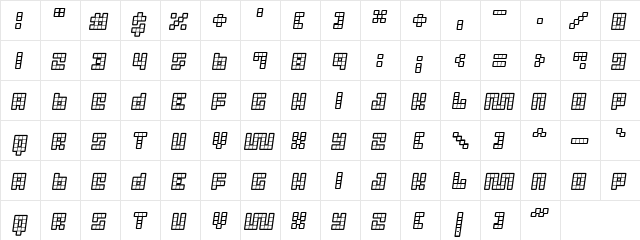
Trick B12 Regular
Design Context for Trick B12 Typeface
Trick B12 is a composed and adaptable typeface that performs quietly and consistently across a wide range of design contexts.